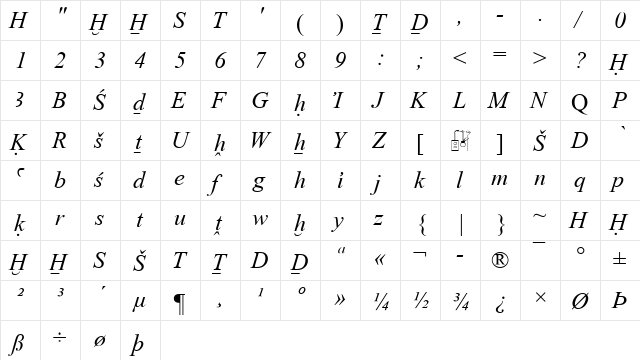
Transliteration Italic
Transliteration is a composed and adaptable typeface that performs quietly and consistently across a wide range of design contexts. Its italic angle brings a sense of urgency and motion to the letterforms.
Pro Tip: Use Transliteration for emphasis, pull quotes, and subheadings where its slanted energy can add rhythm to the layout.